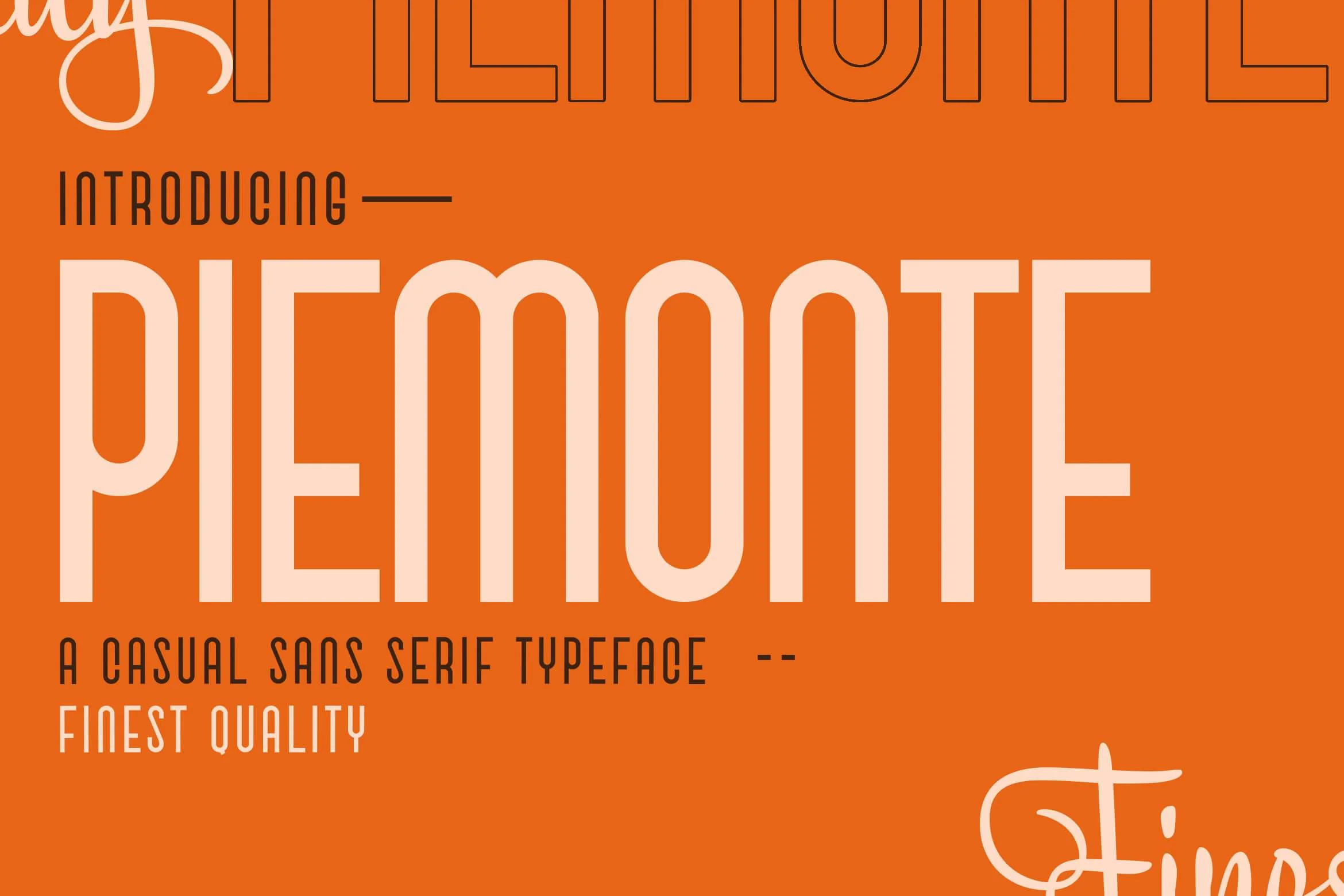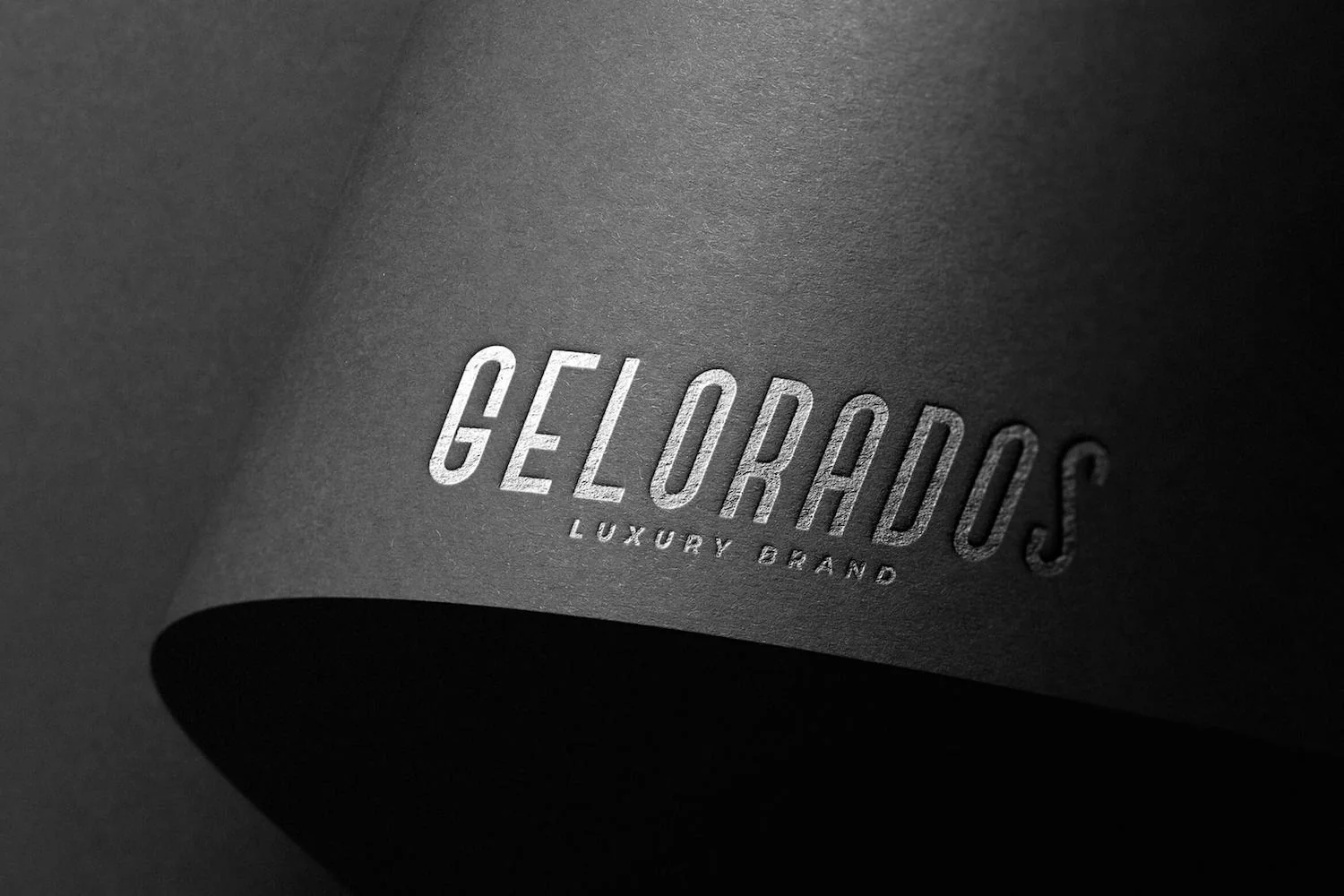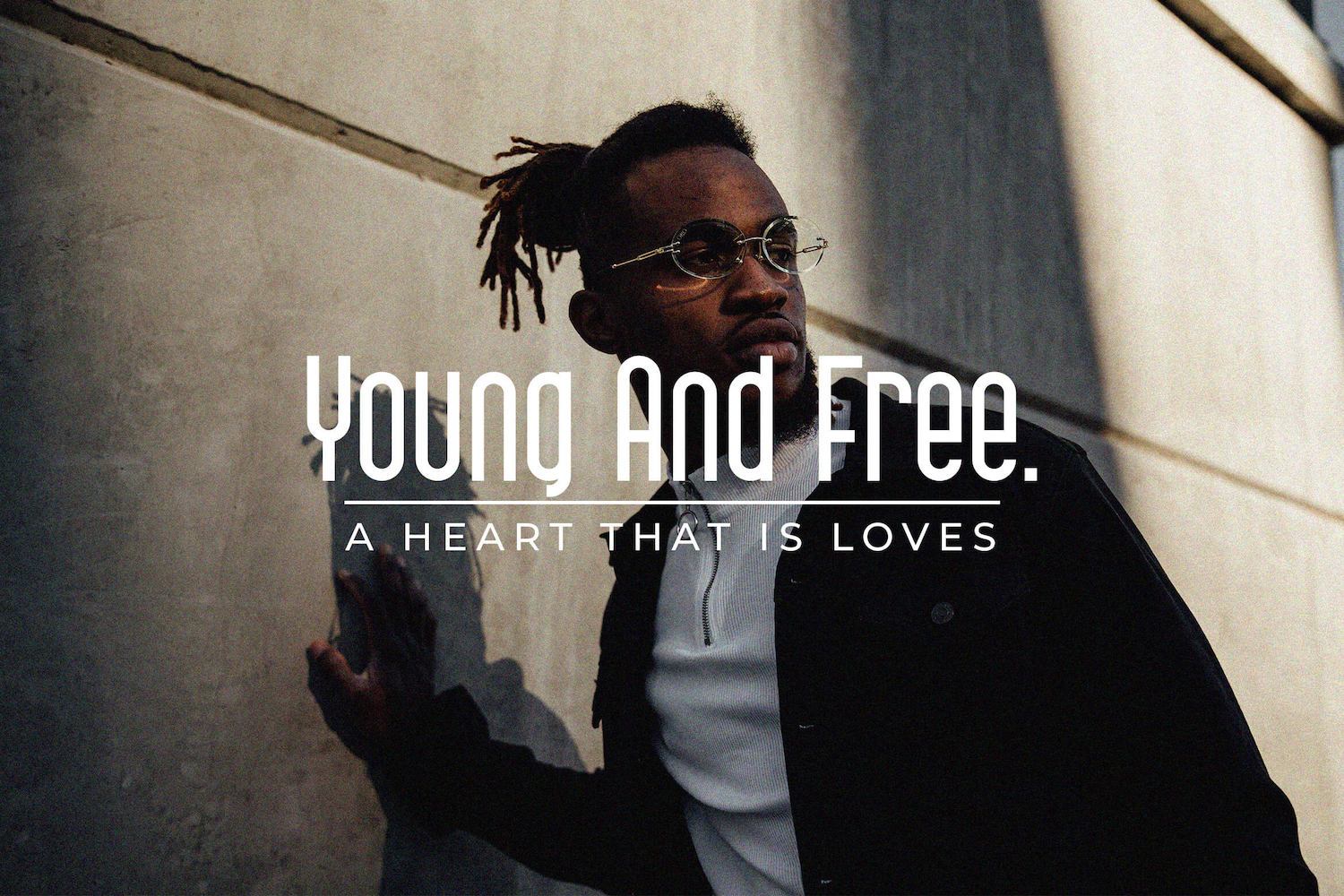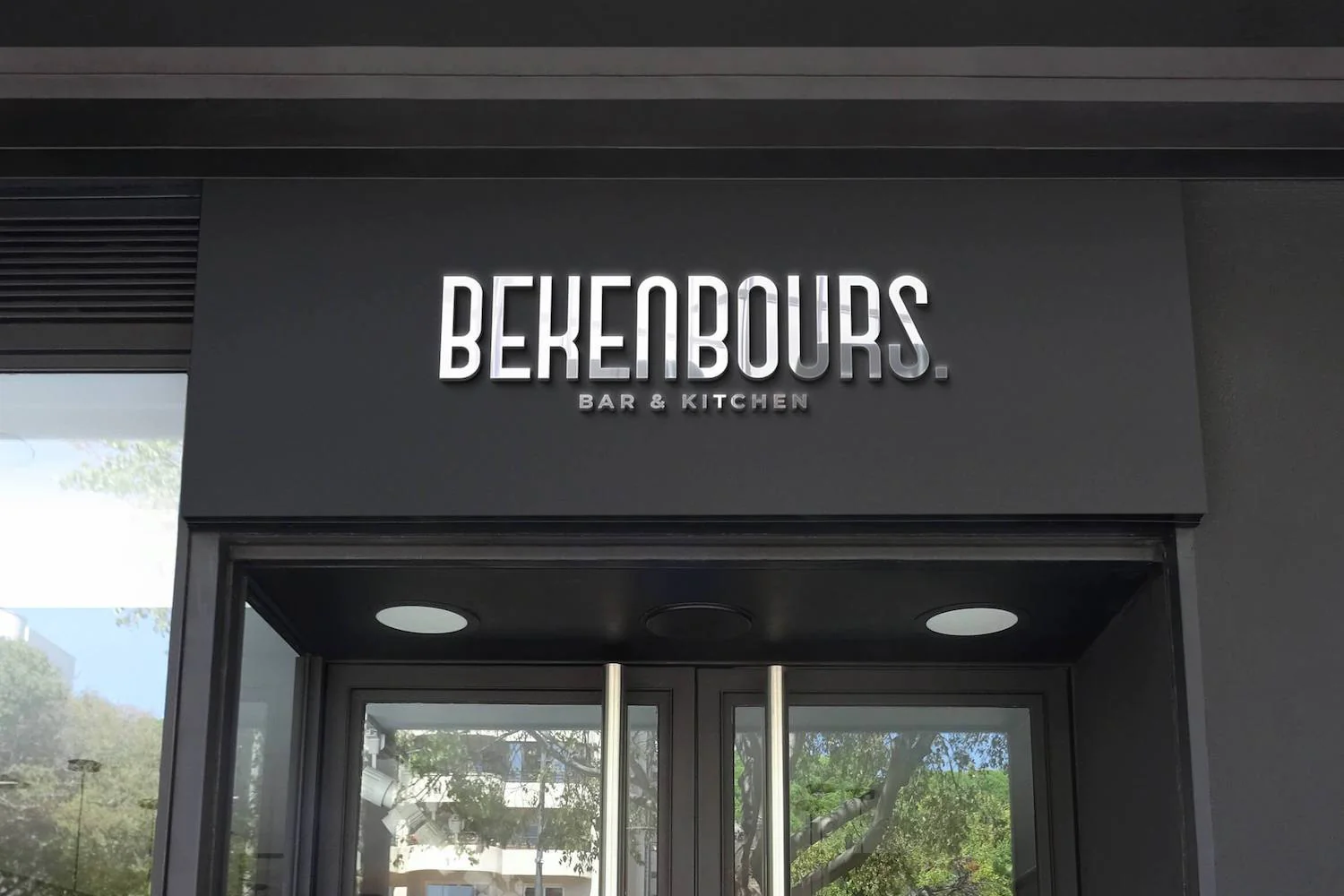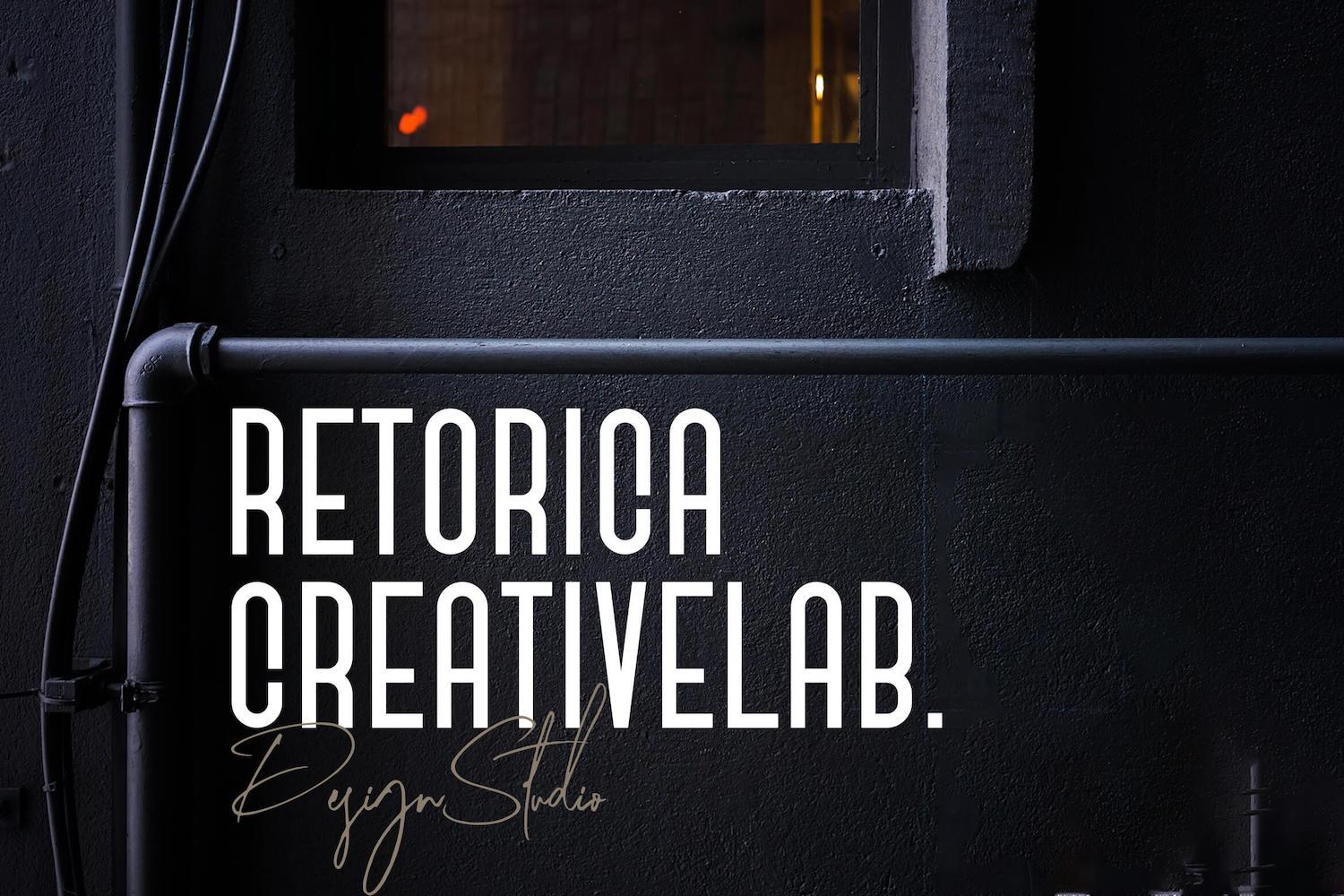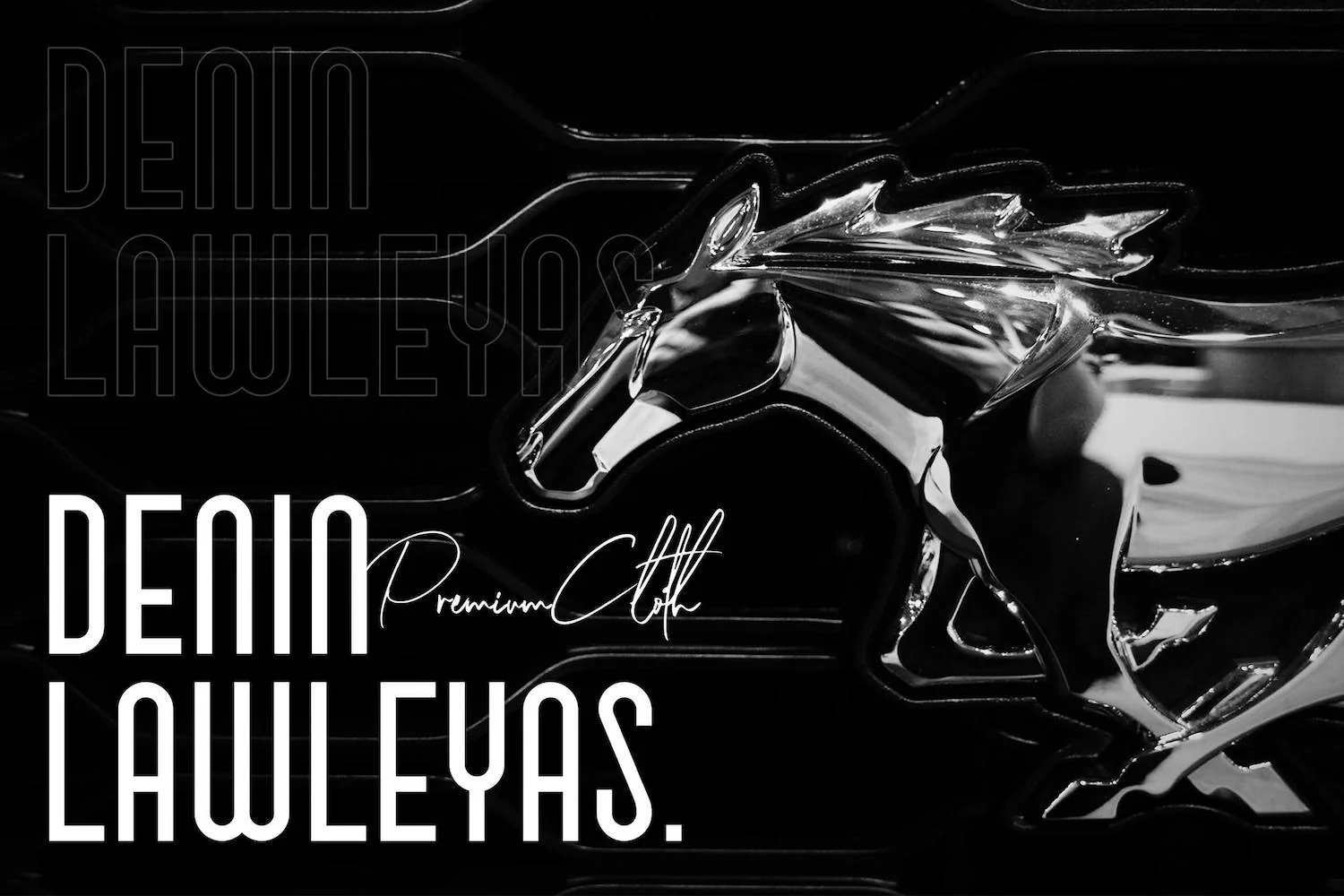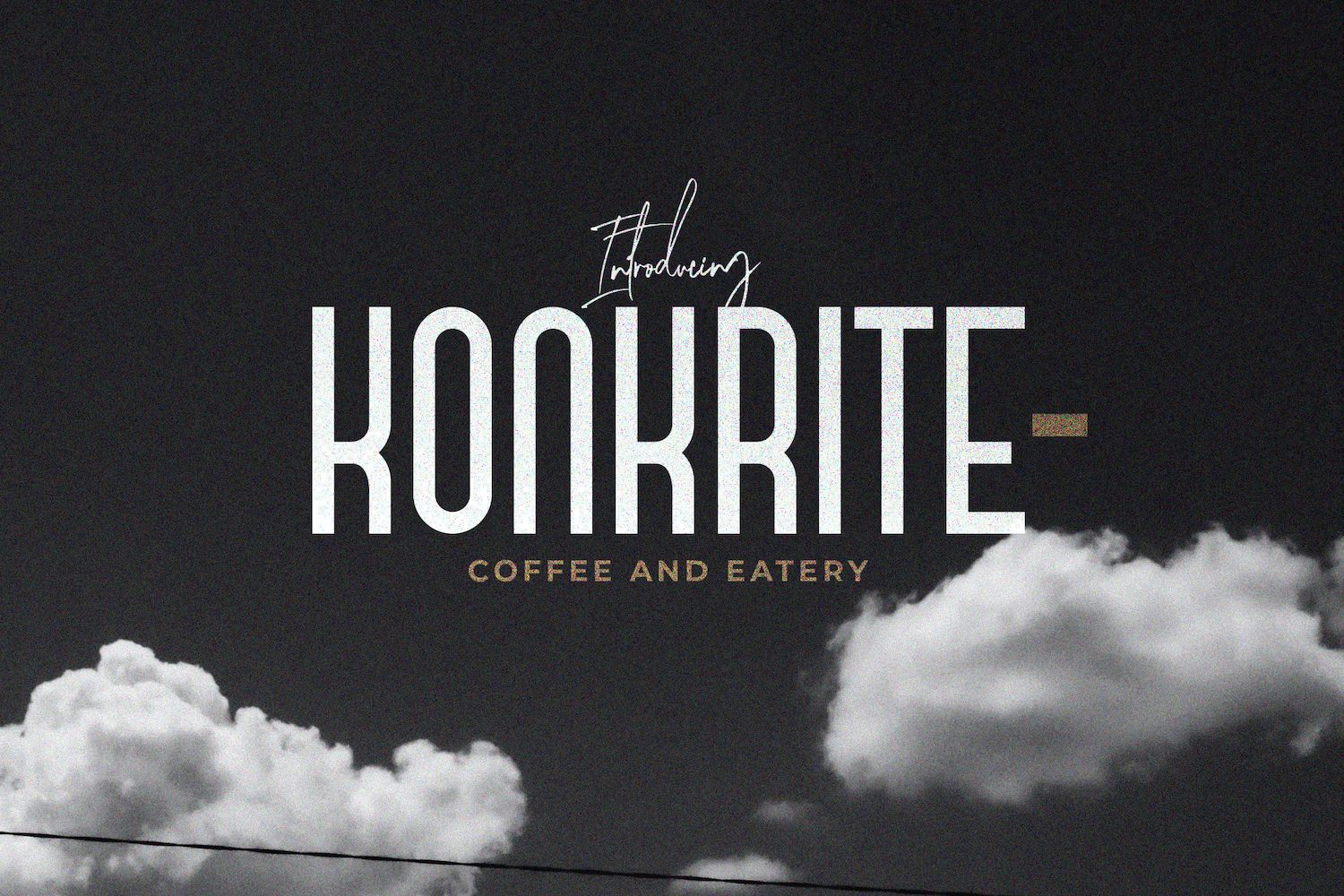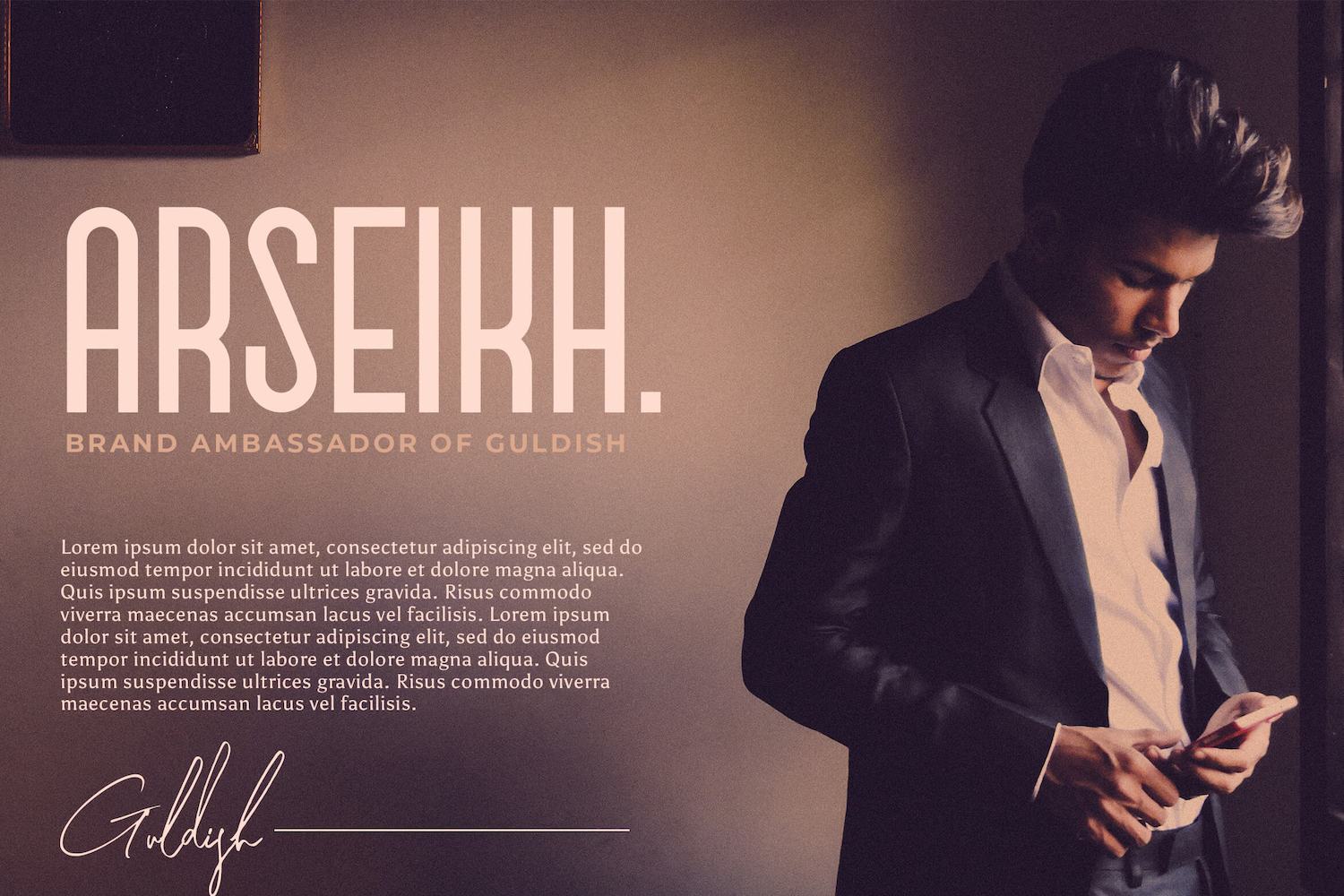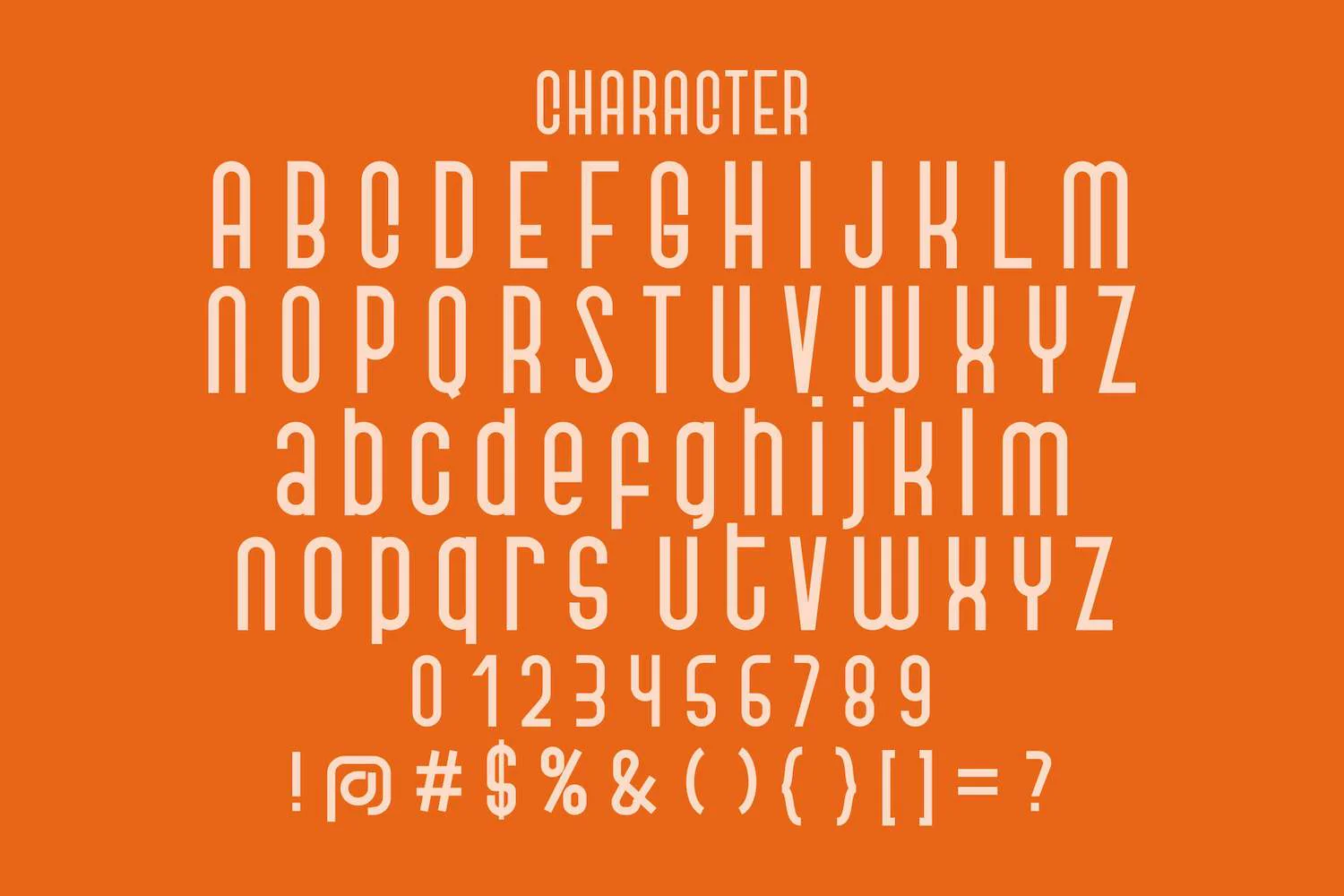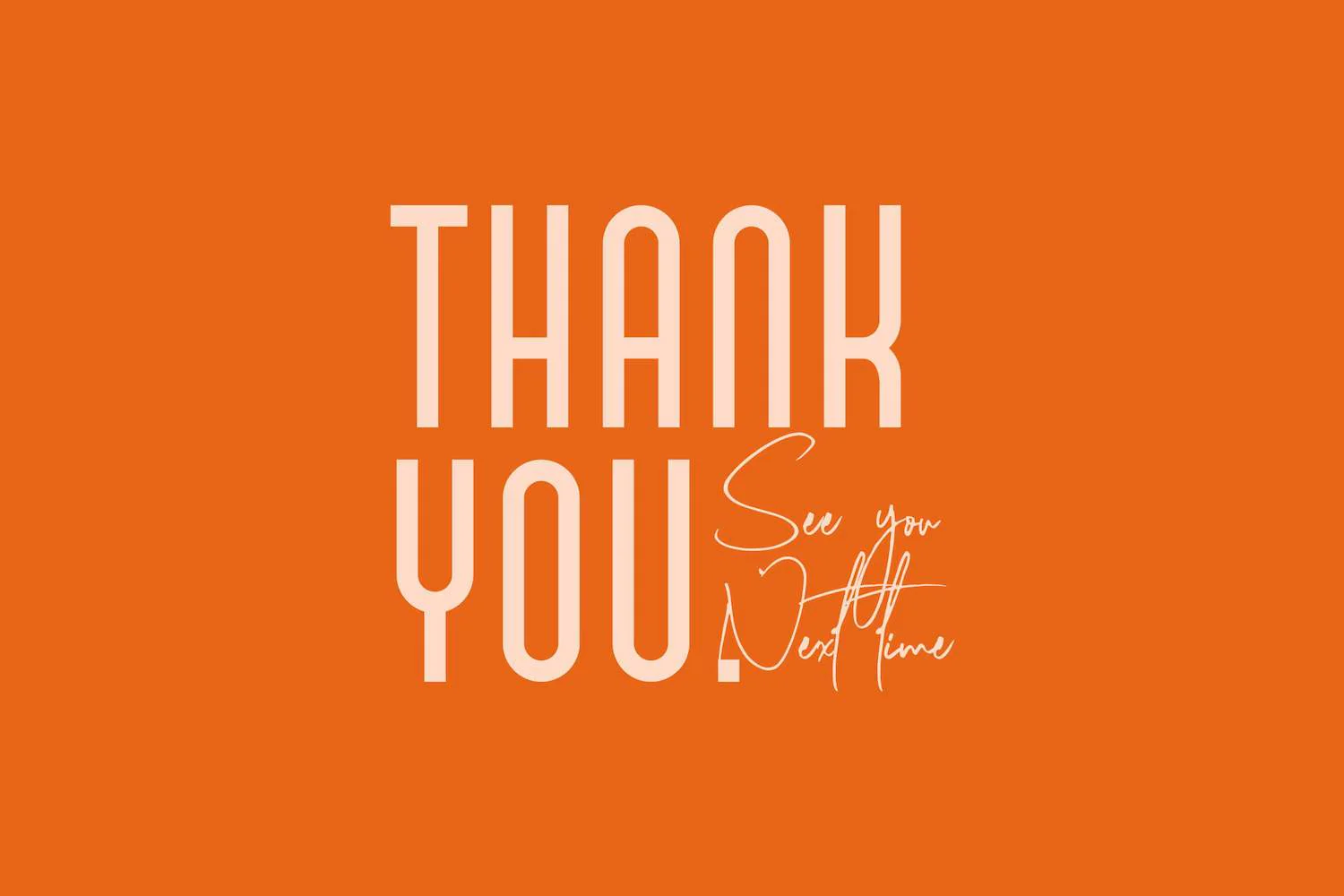
Piemonte - Casual Sans Serif Font
Introducing Piemonte - Casual Sans Serif Font
Piemonte is a simple and bold sans serif font. This beautiful and professional typeface is suitable for film posters, headlines, block letters, subheadings, logo designs, and so much more.
Introducing Piemonte - Casual Sans Serif Font
Piemonte is a simple and bold sans serif font. This beautiful and professional typeface is suitable for film posters, headlines, block letters, subheadings, logo designs, and so much more.